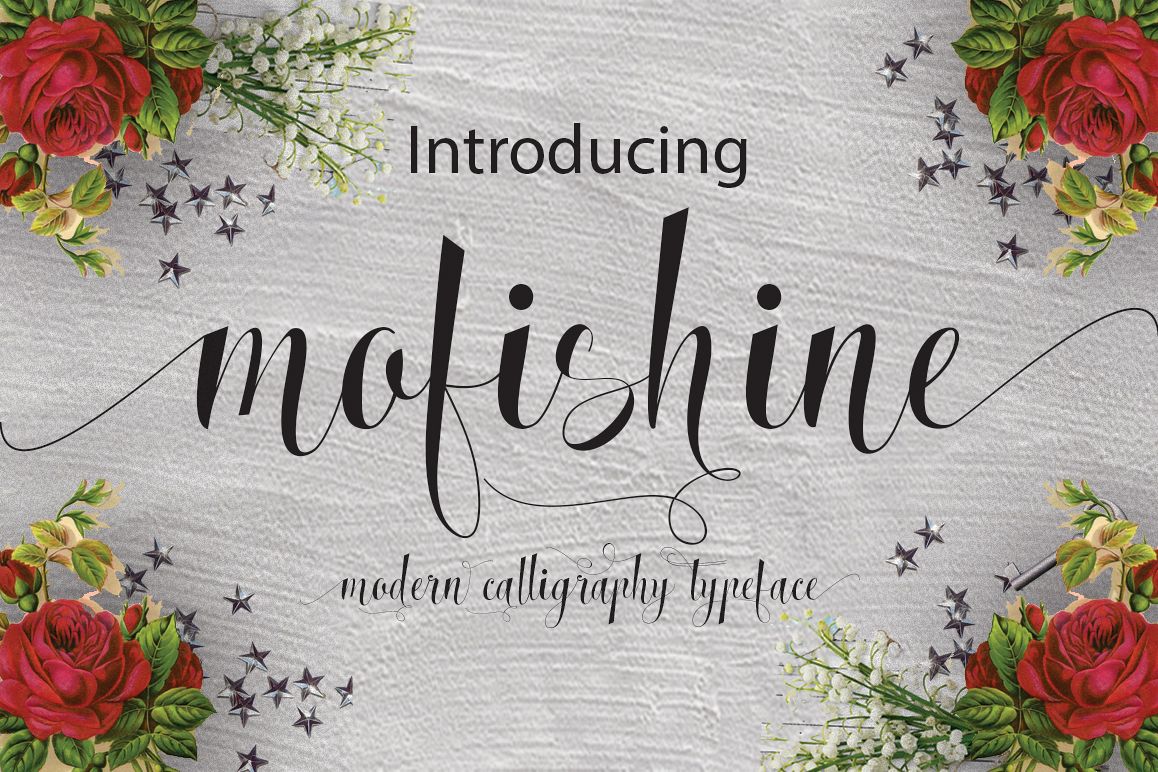
Mofishine script
mofishine.
Introducing Mofishine Script - fresh and modern new script with sweet style calligraphy, decorative and basic character dancing, can be used for many purposes. such as title, signature, logo, correspondence, wedding invitations, letterhead, signage, labels, newsletters, posters, badges and more!
Mofishine script comes with 615 glyphs and has given PUA Unicode (font specific code). Alternate characters are divided into several OpenType features such as Stylistic Sets, Contextual Substitute, and ligature. OpenType features can be accessed using OpenType savvy programs like Adobe Illustrator and Adobe InDesign.
The Features of this fonts is:
Contextual Alternates
Standart ligatures
Stylistic Alternates
Stylistic Sets and
swashes.
Features Basic Latin A-Z and a-z Numbers Symbols